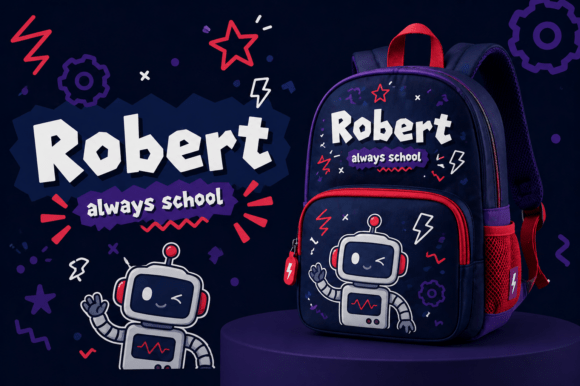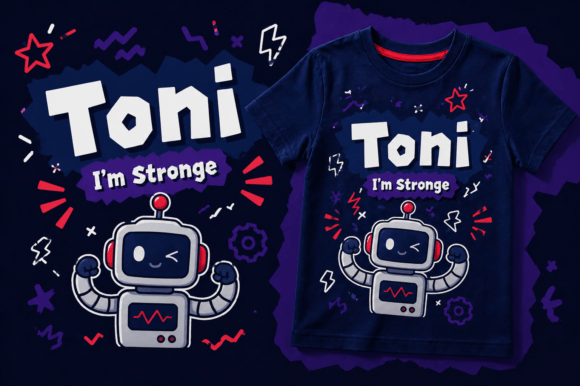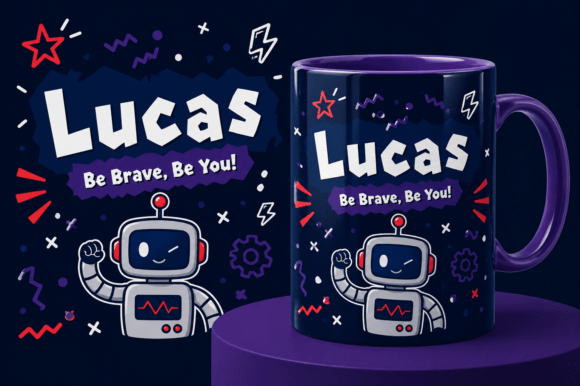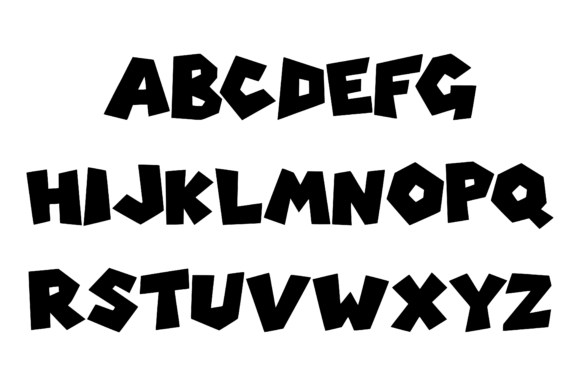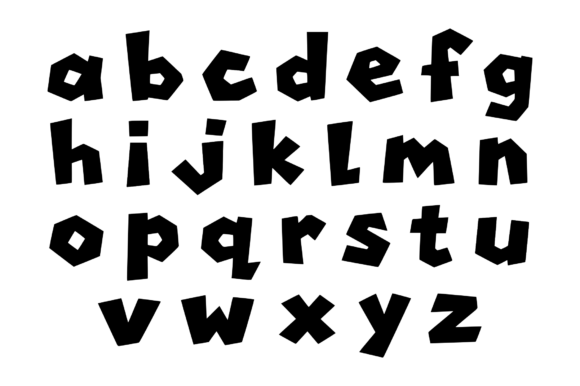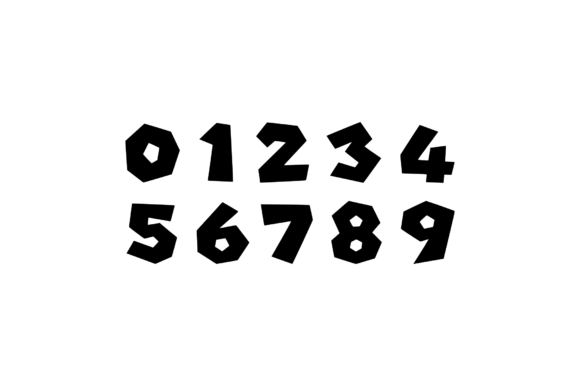
Introduction to Reblax Font
Refreshingly unconventional and dynamic, Reblax is an idiosyncratic display font boasting adventurous and distinctly handcrafted characters.
Each letter bursts with audacious personality, crafted with irregular forms and bold, angular accents These characteristic shapes embody a vibrant energy; their daring contours sculpt a striking and assertive silhouette.